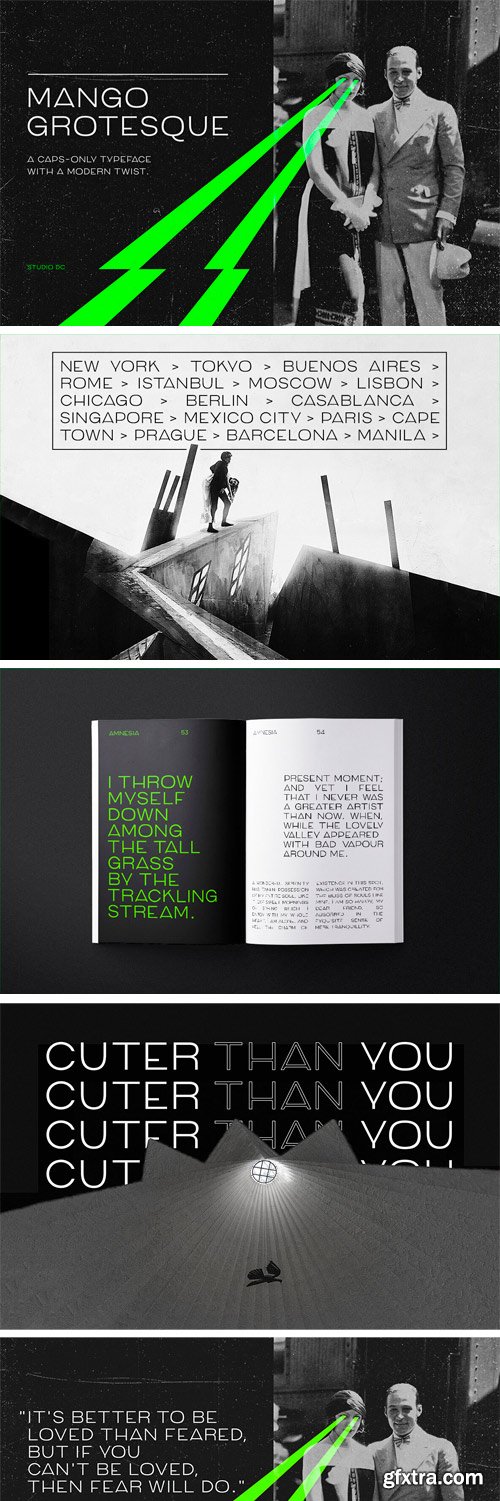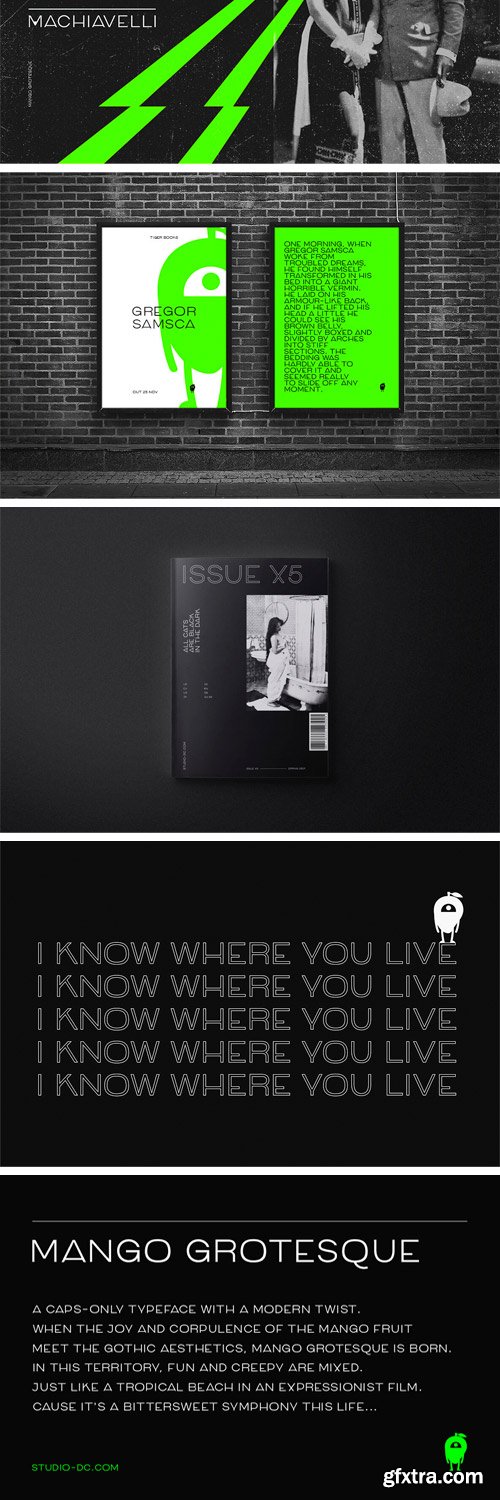
Mango Grotesque Font
A caps-only typeface with a modern twist. When the joy and corpulence of the mango fruit meet the gothic aesthetics, Mango Grotesque is born. In this territory, fun and creepy are mixed. Just like a tropical beach in an expressionist film. Cause it's a bittersweet symphony this life...